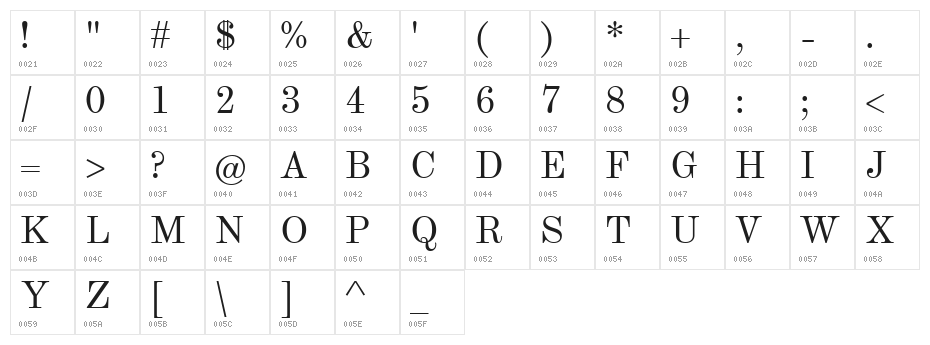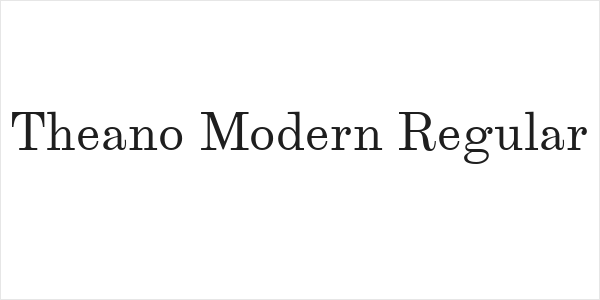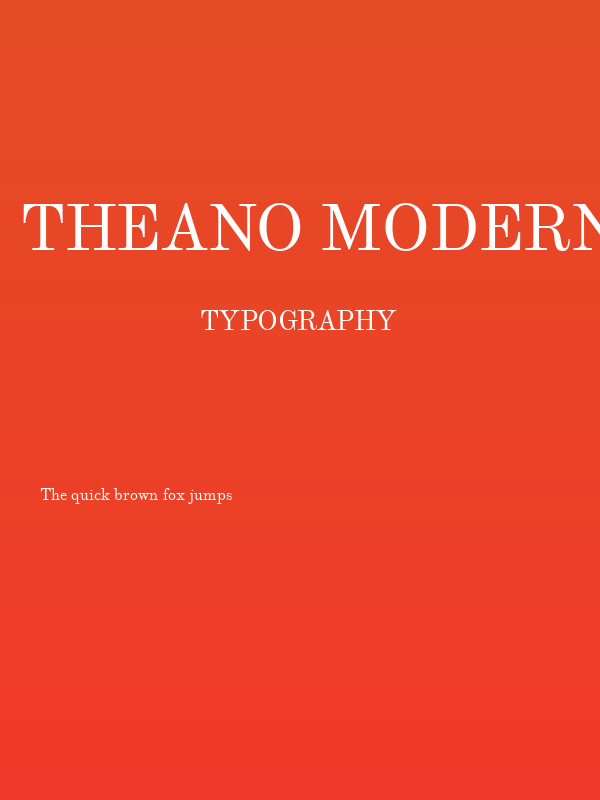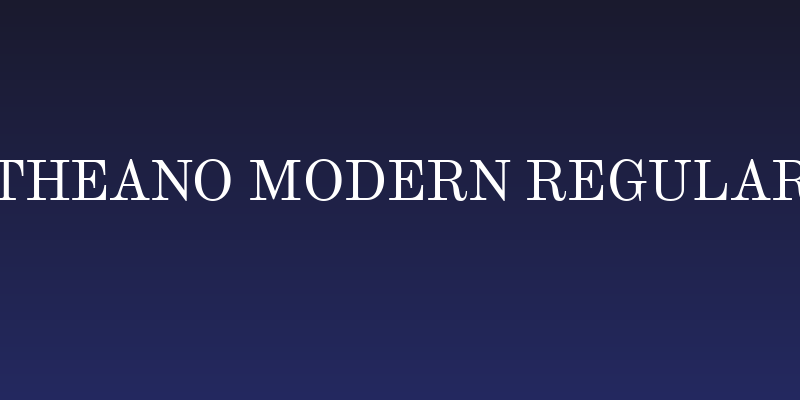
Theano Modern Regular Font
Theano Modern Regular Description
This typeface features a classic serif design with elegant, thin strokes and moderate contrast between thick and thin lines. The serifs are well-defined and slightly bracketed, giving the letters a traditional yet refined appearance. The uppercase letters are stately and balanced, while the lowercase letters maintain a consistent x-height, contributing to readability. The numerals are proportional and align well with the overall style, making them suitable for both text and display purposes. The special characters are crafted with the same attention to detail, ensuring a cohesive look across all glyphs.